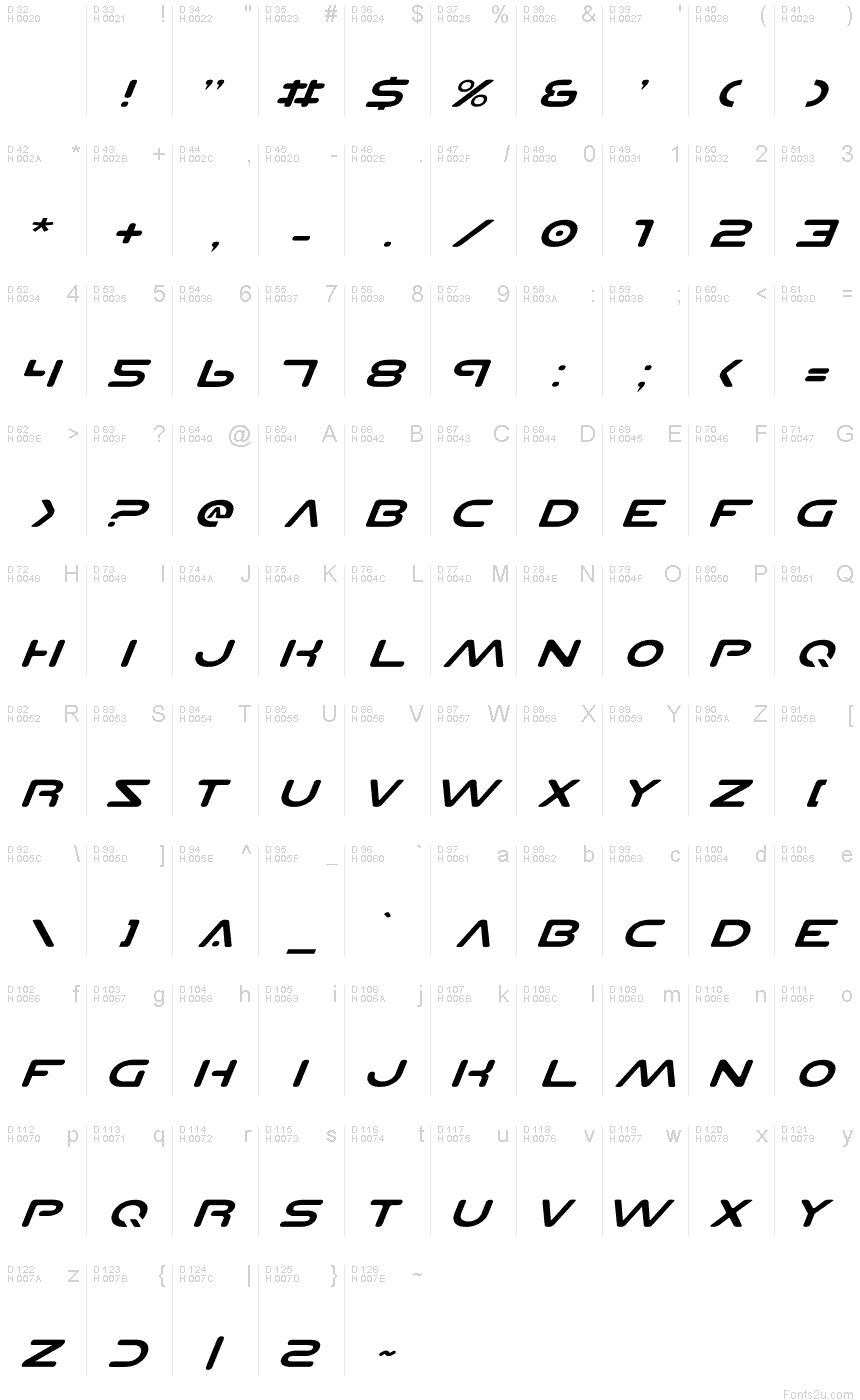
Planet NS Expanded Italic, by Iconian Fonts, is a free futuristic caps display font with a fast, sci-fi slant. The letters feel streamlined and aerodynamic, built from broad strokes, rounded corners, and sharp angled cuts that give the alphabet a sleek, machine-age rhythm.
It works well for game logos, electronic music artwork, tech posters, title cards, and bold cover lines where a free font needs to suggest speed and synthetic polish without getting fussy. Because the caps are so pared back and directional, it also suits monograms or short branding hits where a few letters can carry the whole look.
Planet NS Expanded Italic
Daniel Zadorozny